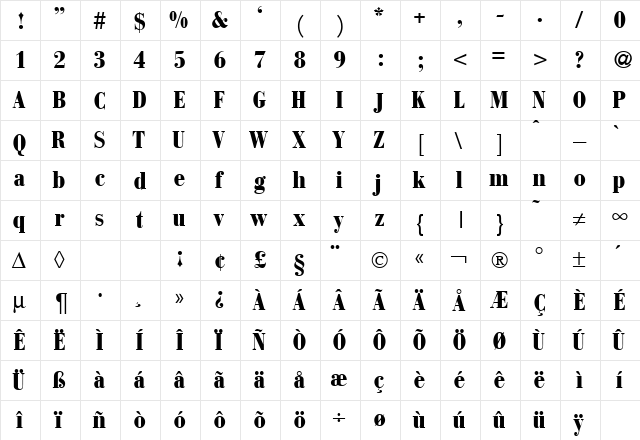
BodoniRecutCond Bold Font Preview
BodoniRecutCond Bold
BodoniRecutCond Bold Font Details
Design Context for BodoniRecutCond Typeface
BodoniRecutCond takes a measured approach to typography — its balanced proportions and neutral character make it a reliable workhorse for both digital and print work. Its bold stroke weight gives it real presence on the page. Its narrow stance lets it pack a punch even in space-constrained designs.